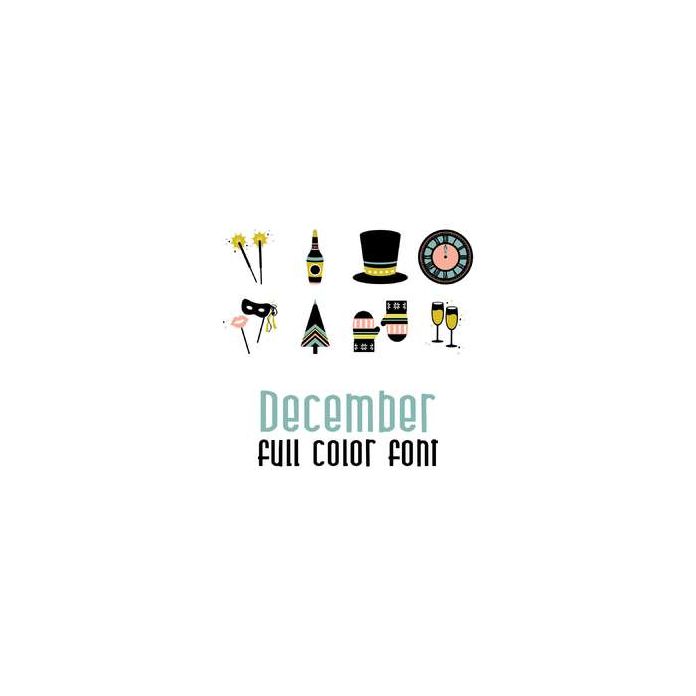
This adorable full color doodlebat font features beautiful Winter and New Years themed imagery. Perfect for cards, crafts, gifts, decor, scrap book pages, planner stickers and more!